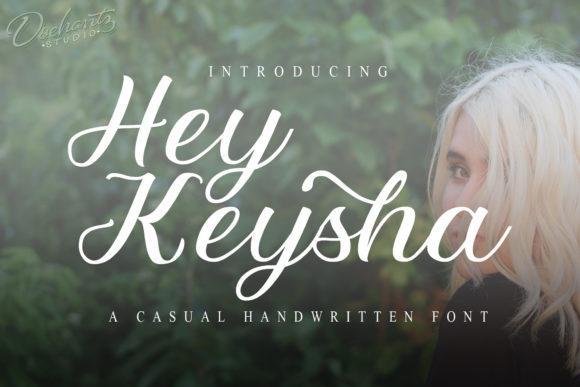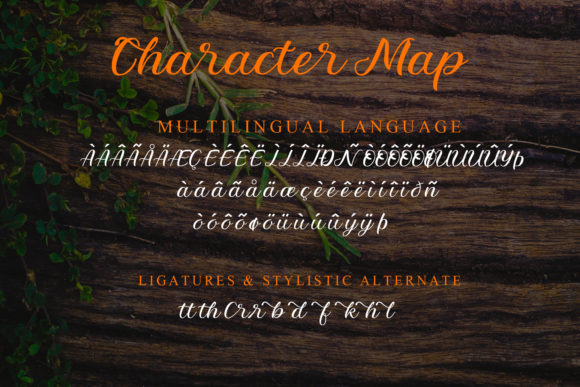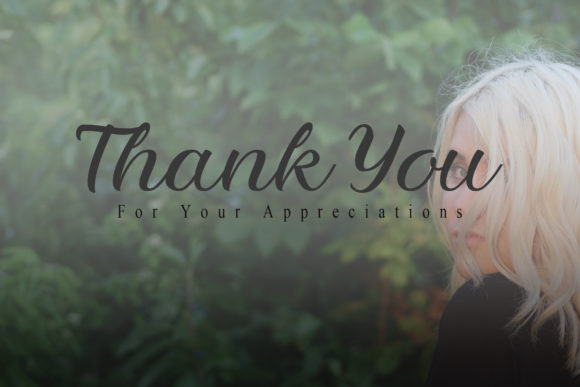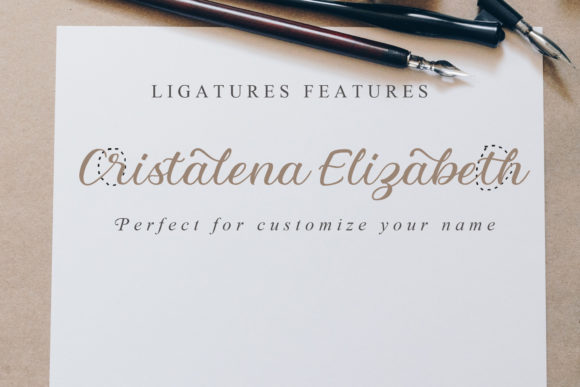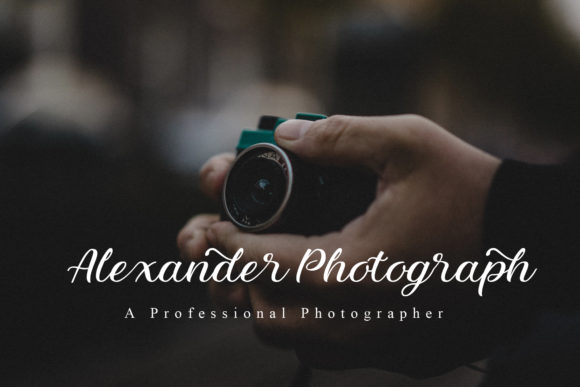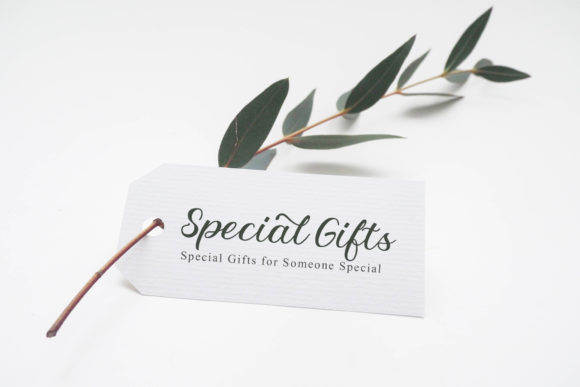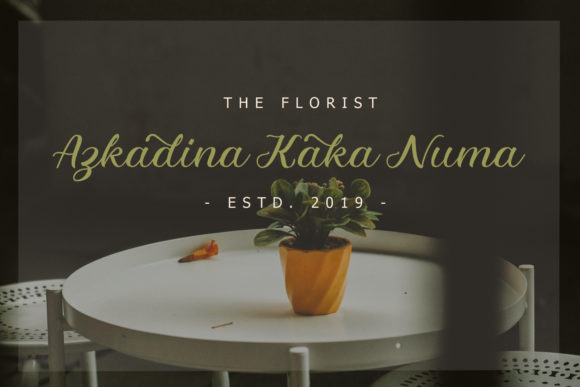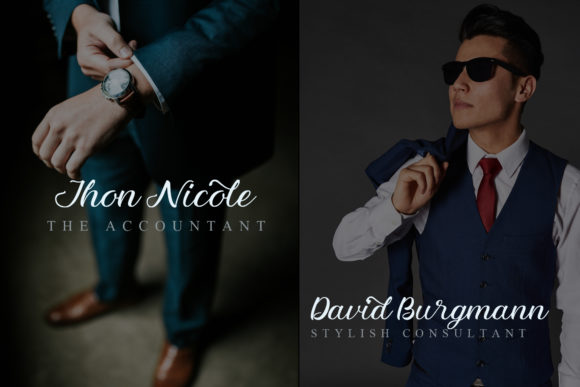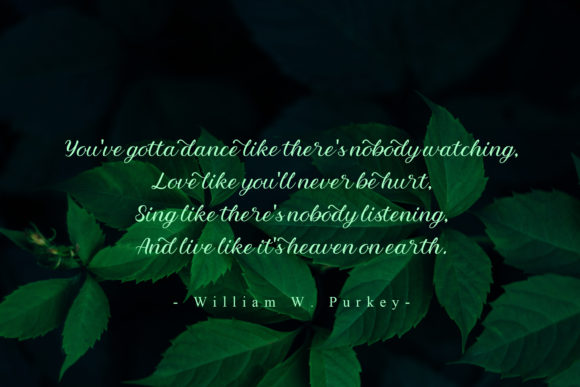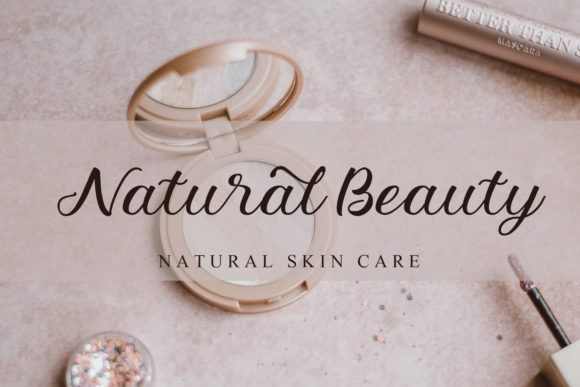
HomeScript FontsHey Keysha Font Script Fonts Hey Keysha Font FacebookXPinterestWhatsApp Hey Keysha Font Poster 2 Hey Keysha Font Poster 3 Hey Keysha Font Poster 4 Hey Keysha Font Poster 5 Hey Keysha Font Poster 6 Hey Keysha Font Poster 7 Hey Keysha Font Poster 8 Hey Keysha Font Poster 9 Hey Keysha Font Poster 10 Hey Keysha Font Poster 11 About Hey Keysha Font Hey Keysha is a cute and friendly script with a modern style. Get inspired by its timeless beauty! DOWNLOAD ON CREATIVE FABRICAThis font is sold and delivered by Creative Fabrica. Font Canyon may earn a commission if you buy through this link. People also explored Kimono Font Wood Textured Glyphs Font Lucky Charm Font Costine Font Life of Sachi Font Complete Stylish Font Baby Witch Font Arthur Dale Font Familiar Taste of Poison Font 369 0 TagsHey Keysha Font Previous articleMornin Awesome FontNext articleArticle Script Font LEAVE A REPLY Cancel reply Comment: Please enter your comment! Name:* Please enter your name here Email:* You have entered an incorrect email address! Please enter your email address here Website: Save my name, email, and website in this browser for the next time I comment. Personal Use Free Happy Rabbit Personal Use Free Read more about this font Bukan Personal Use Free Read more about this font Droid Personal Use Free Read more about this font Rina Personal Use Free Read more about this font BLOG Top 7 Google Fonts Alternatives for Faster and Privacy-Friendly Web Design (2025) Top 7 Google Fonts Alternatives for Faster and Privacy-Friendly Web Design (2025) When it comes to web typography, Google Fonts has long been the go-to... Modern Sans-Serif Fonts That Brands Love in 2025 Fonts That Capture the Spirit of New York City Best Fonts for T-Shirt Design – Top 2025 Picks